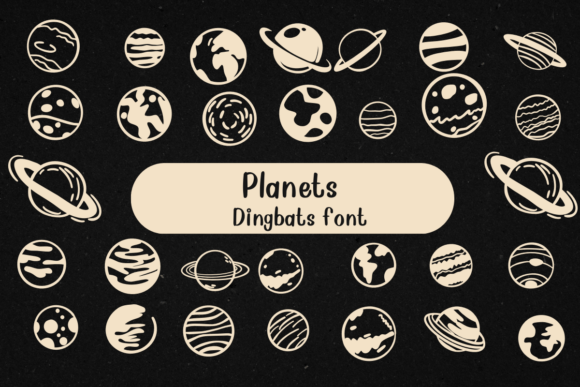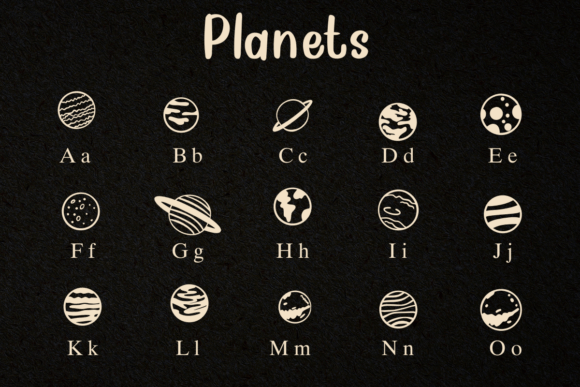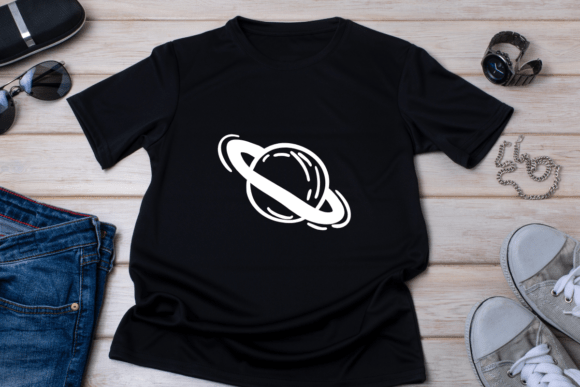
Planets Font
Planets Dingbats Font is a cosmic collection of hand-drawn celestial icons perfect for adding a space-inspired twist to your creative projects. This dingbat font includes a variety of uniquely styled planet illustrations—from classic orbits to textured globes—making it ideal for science-themed posters, kids’ materials, educational content, and whimsical designs.